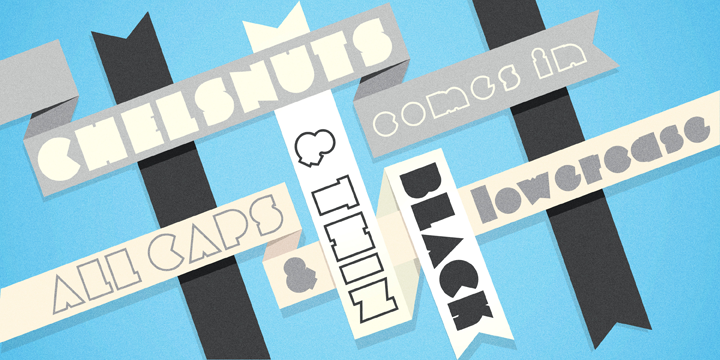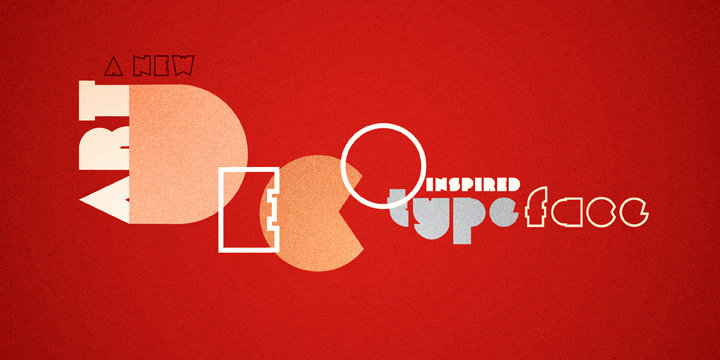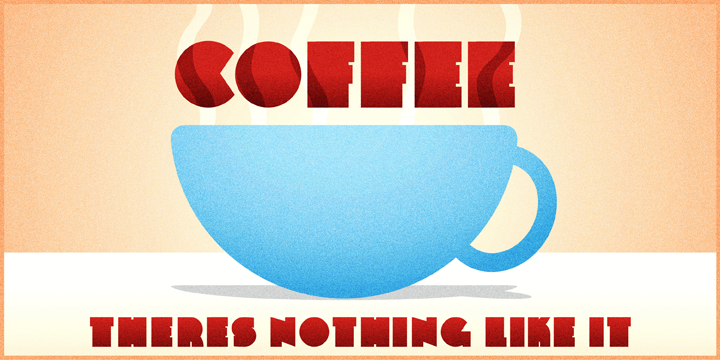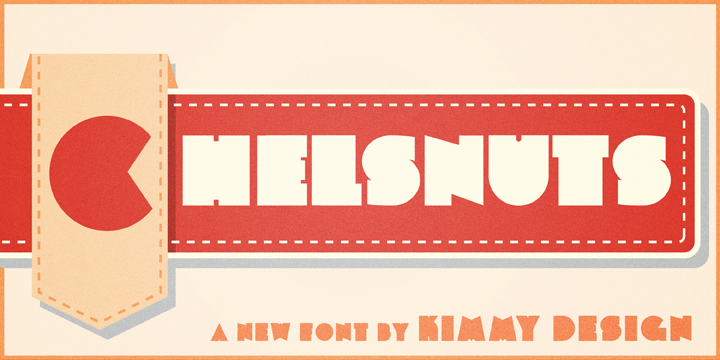
Chelsnuts Family (3 fonts)
From Kimmy Design
Also included are lowercase letters, not typically seen in fonts such as this, and a customized outlined version of the font.